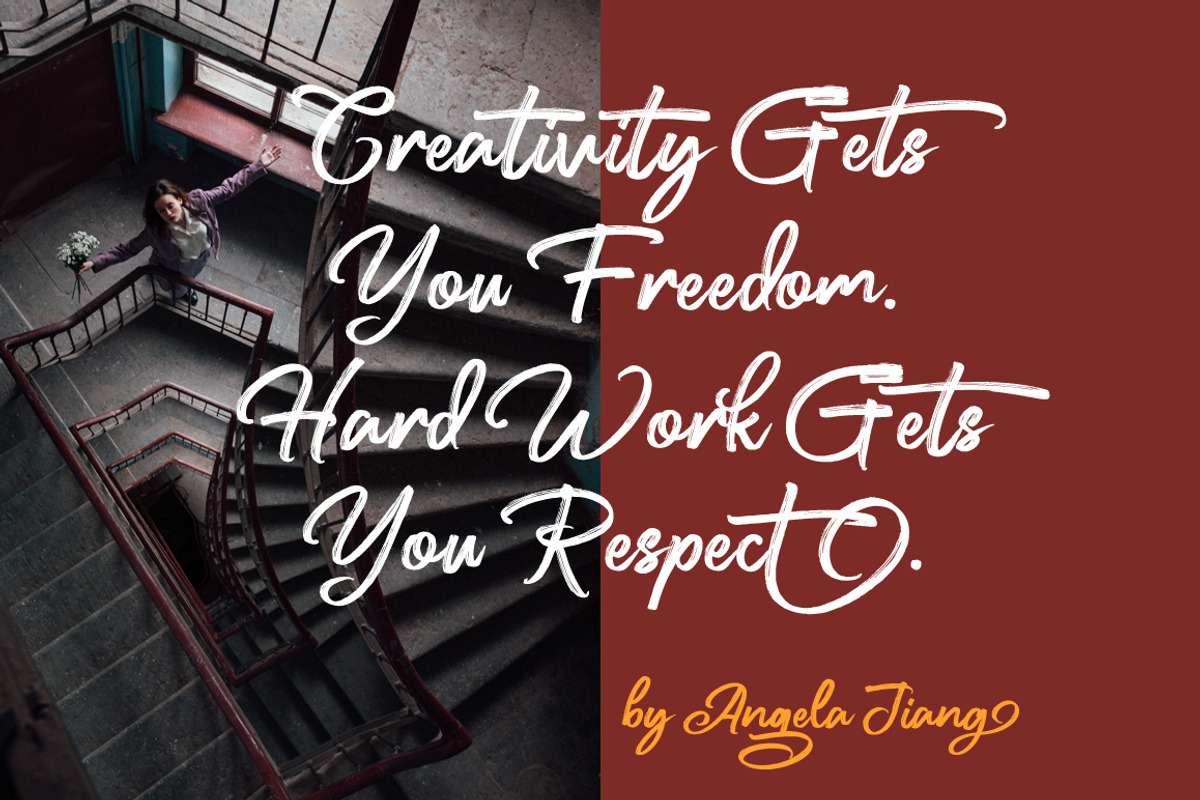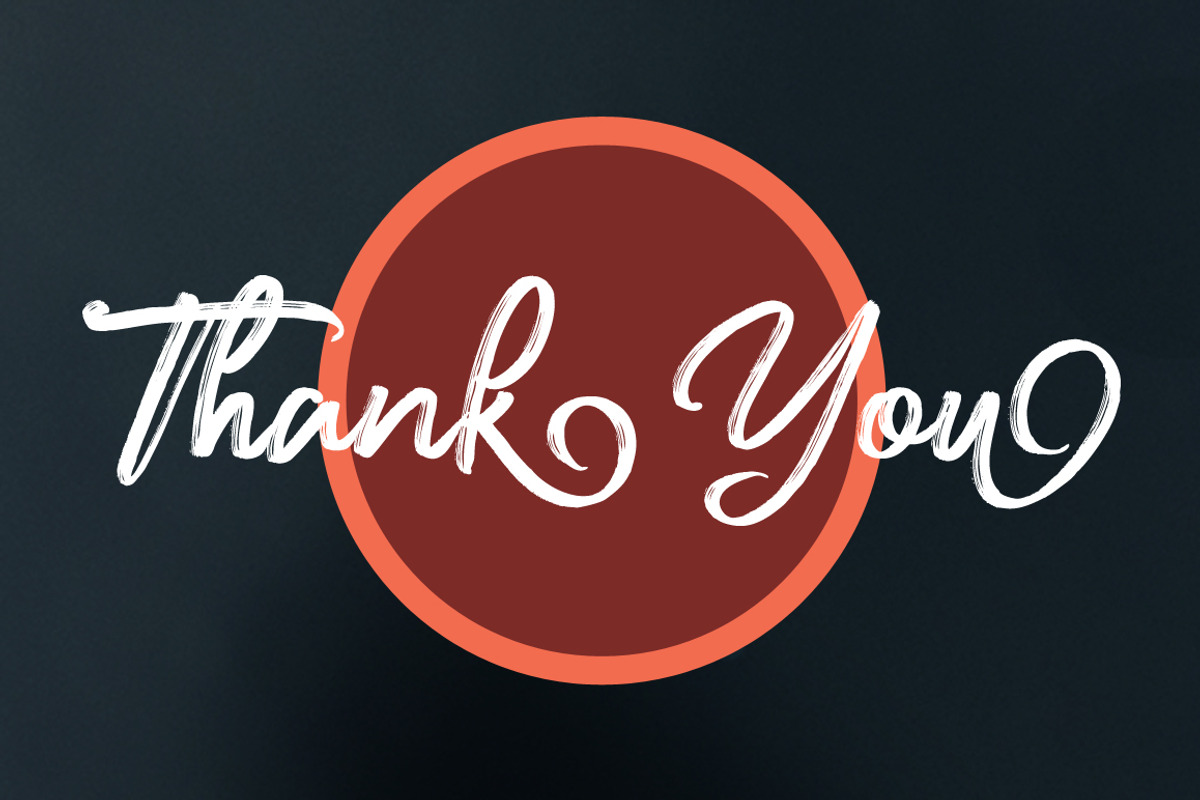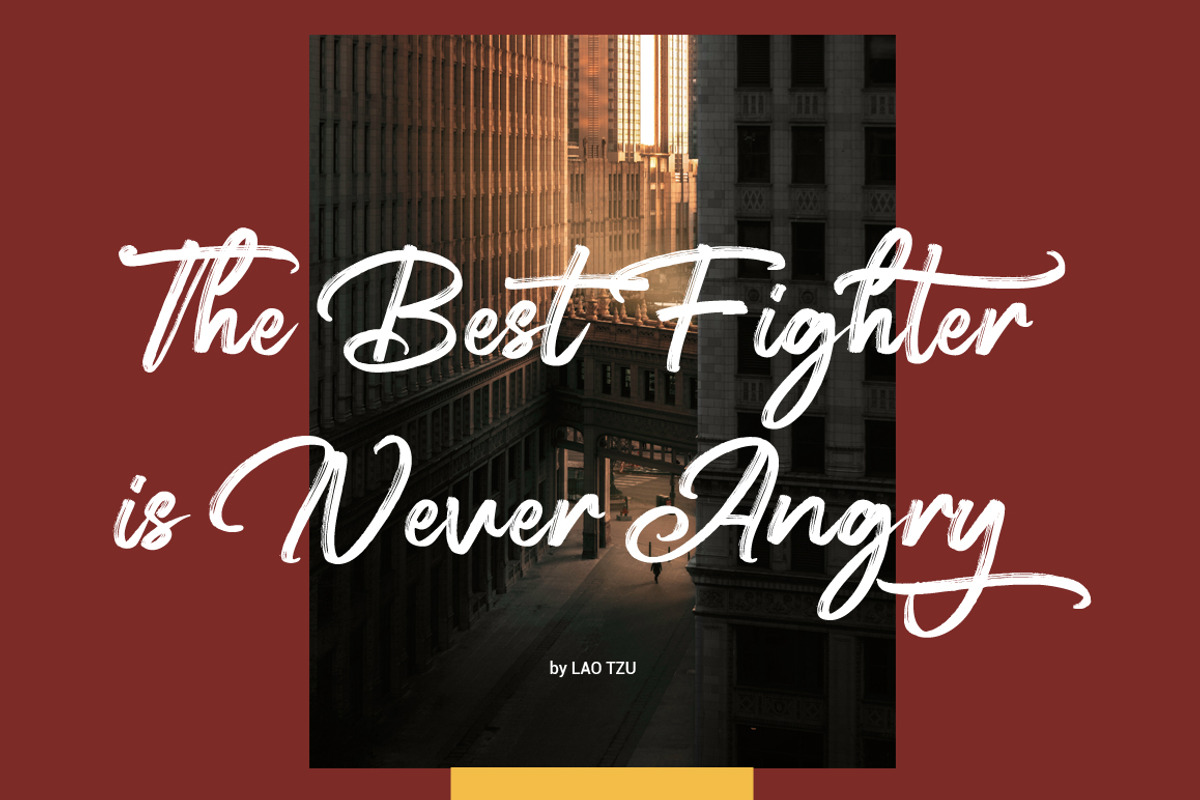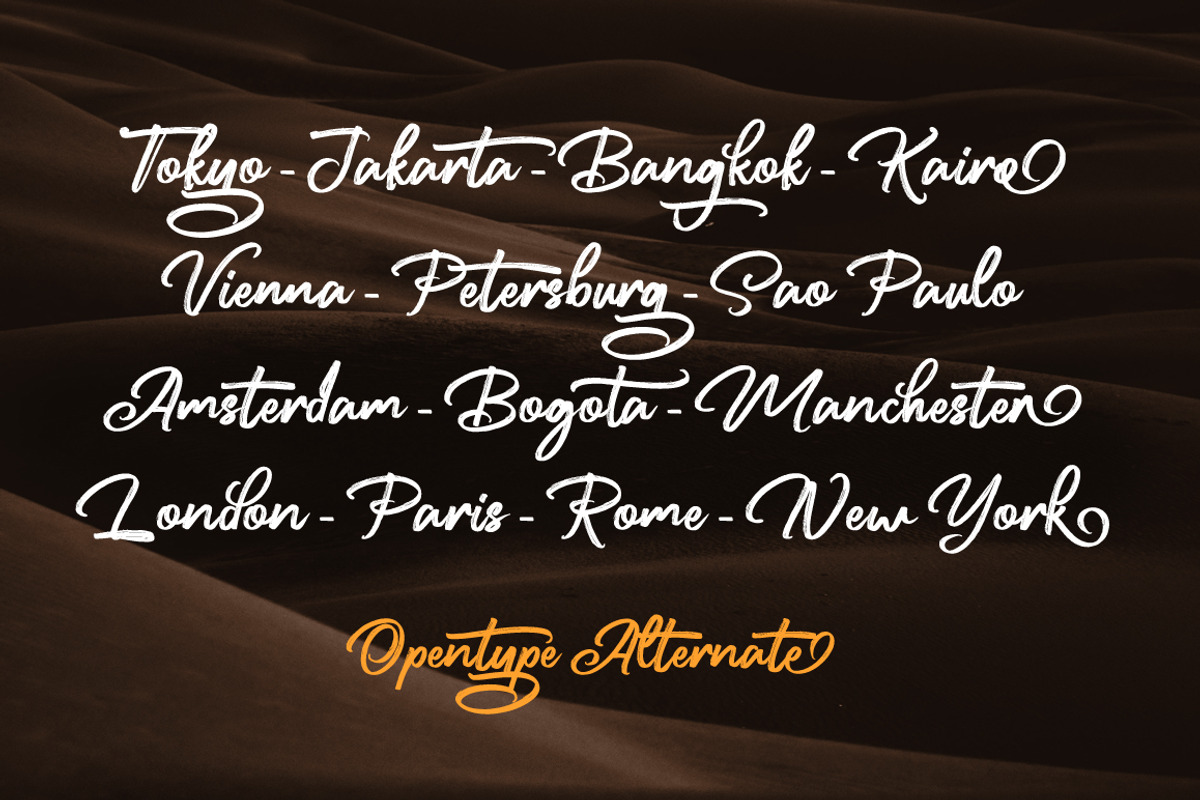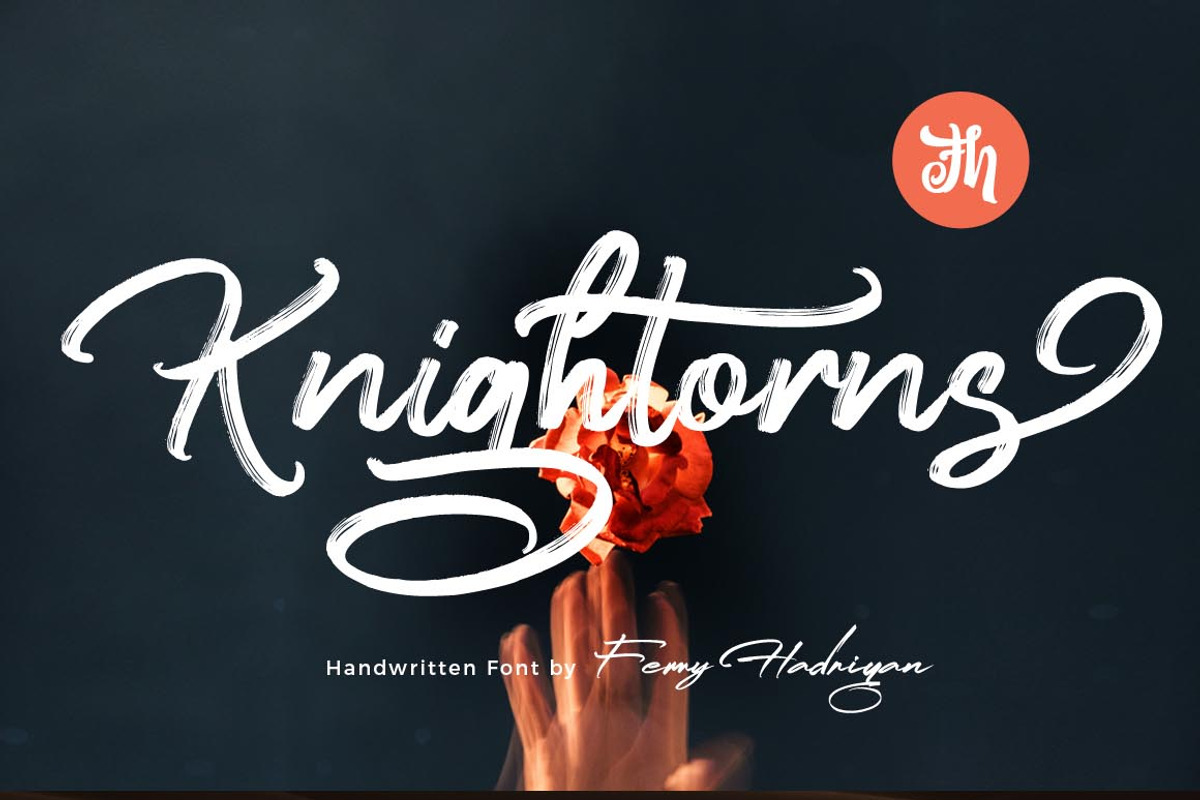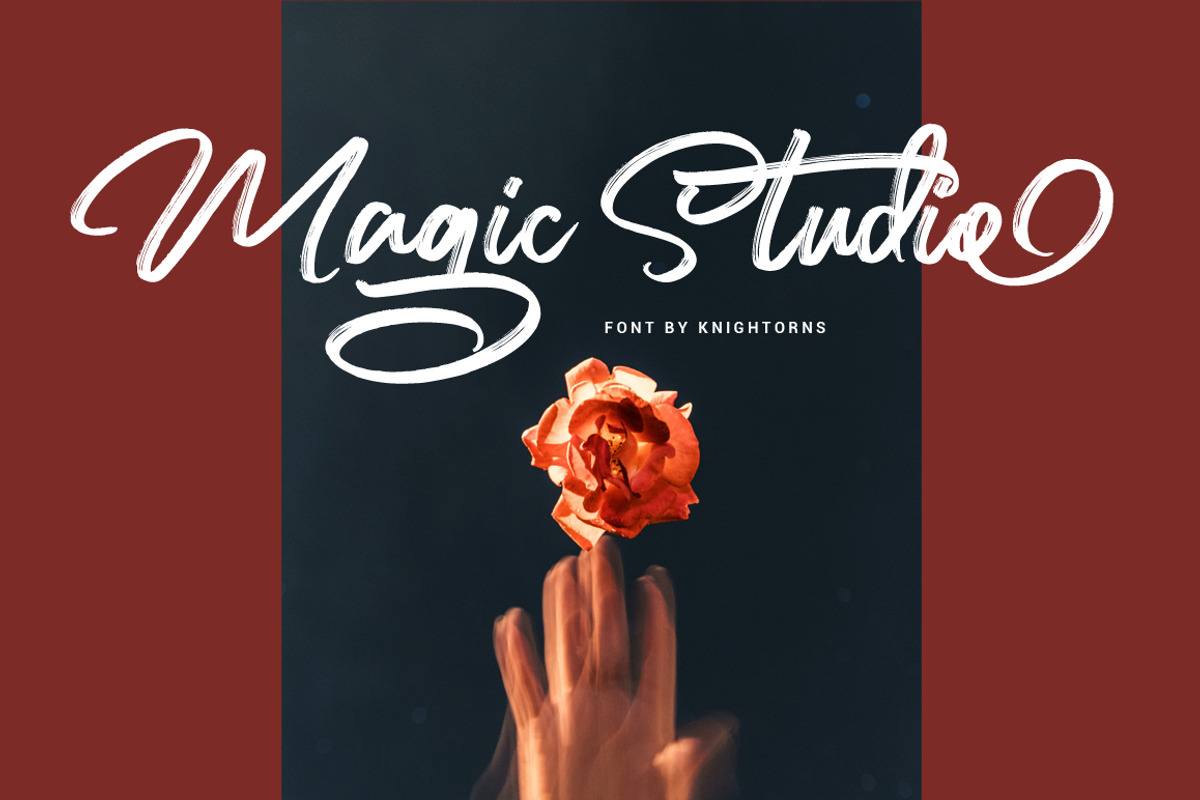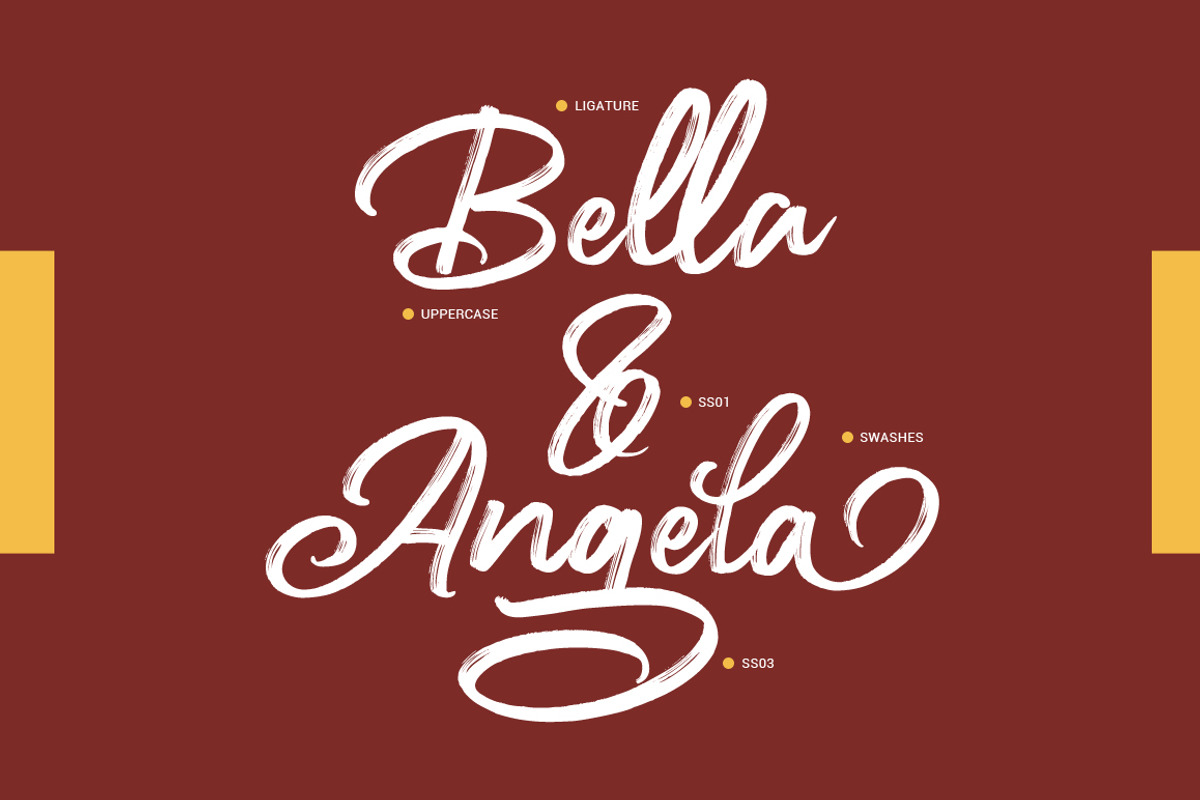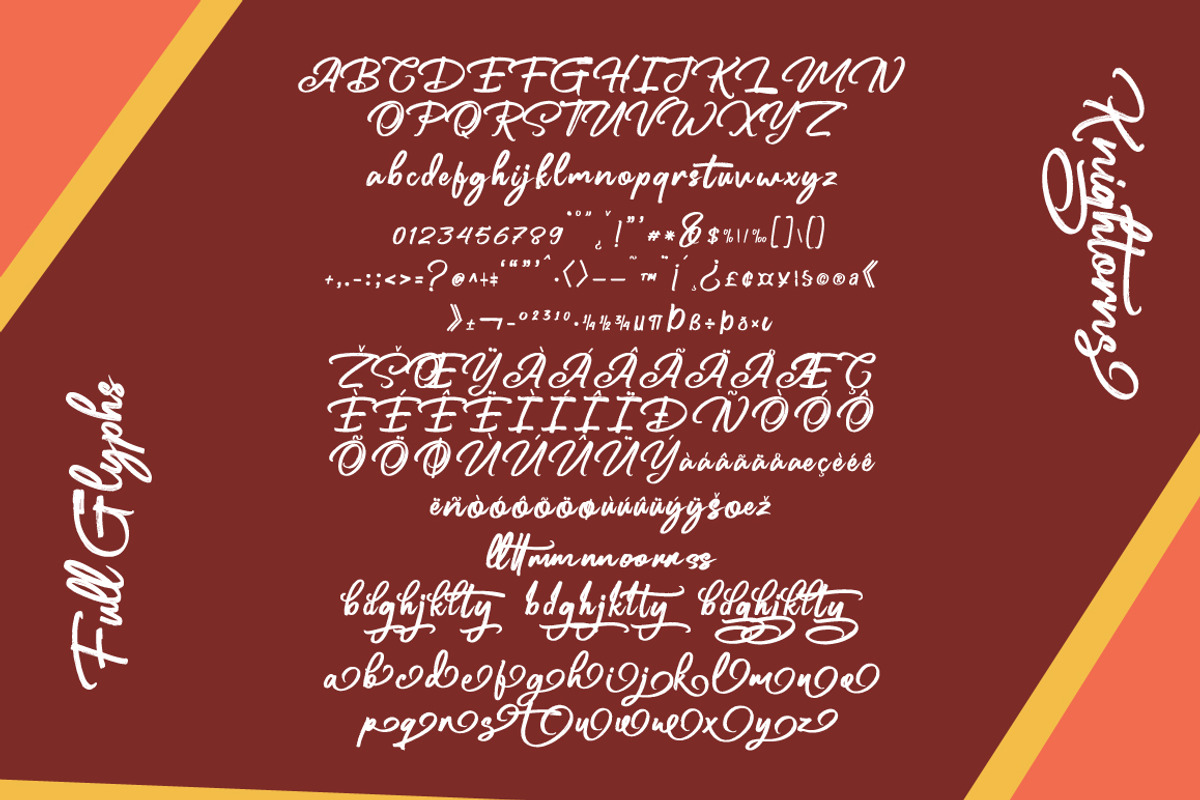
Knightorns - Handwritten Font
Knightorns is script font with handlettering brush style, with opentype feature include of the font. Suitable for design, element design, wedding, event, t-shirt, logo, badges, sticker, and awesome work, etc...
All Standard Character, Symbol, Multilanguage, Ligature, Stylistic Set, and Swashes.